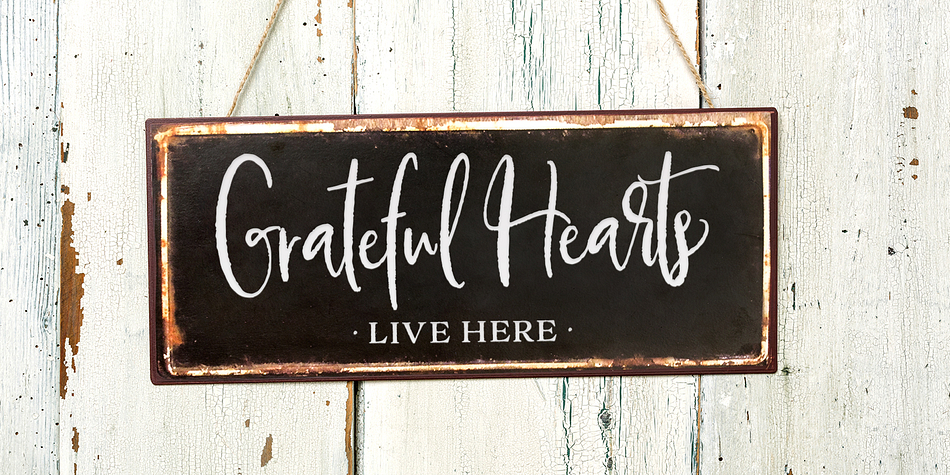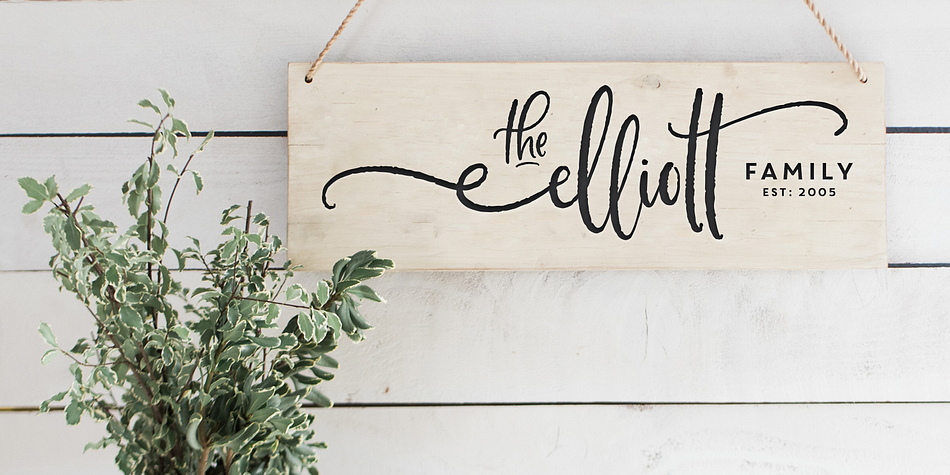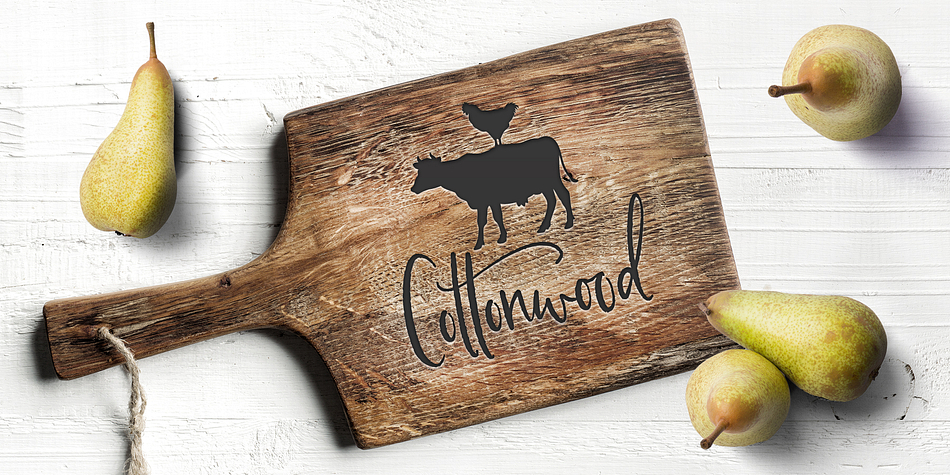
Buttermilk Farmhouse
Designed by Callie Hegstrom, Buttermilk Farmhouse is a modern calligraphy and dingbat font family. This typeface has three styles and was published by MakeMediaCo.
If you’re anything like me, you’re absolutely in love with all things farmhouse! That gorgeous, rustic style is just about everywhere lately, and I just can’t get enough! ❤❤❤
So, in honor of this elegant trend, I’ve created, Buttermilk Farmhouse - a rustic, delicate script that can be used on everything from signage to branding to editorials. Don’t be shy, give this baby a test drive and see what you can do!